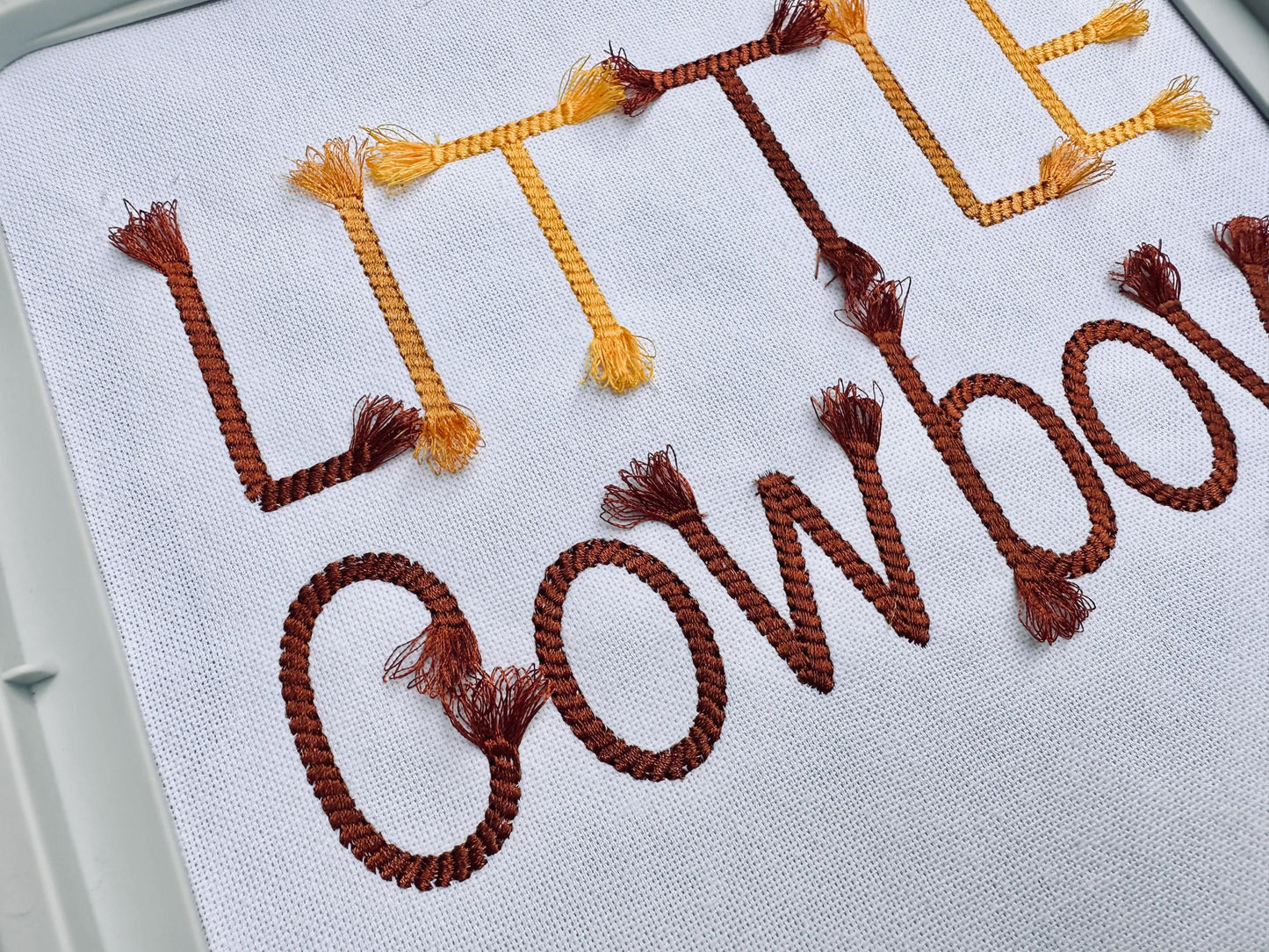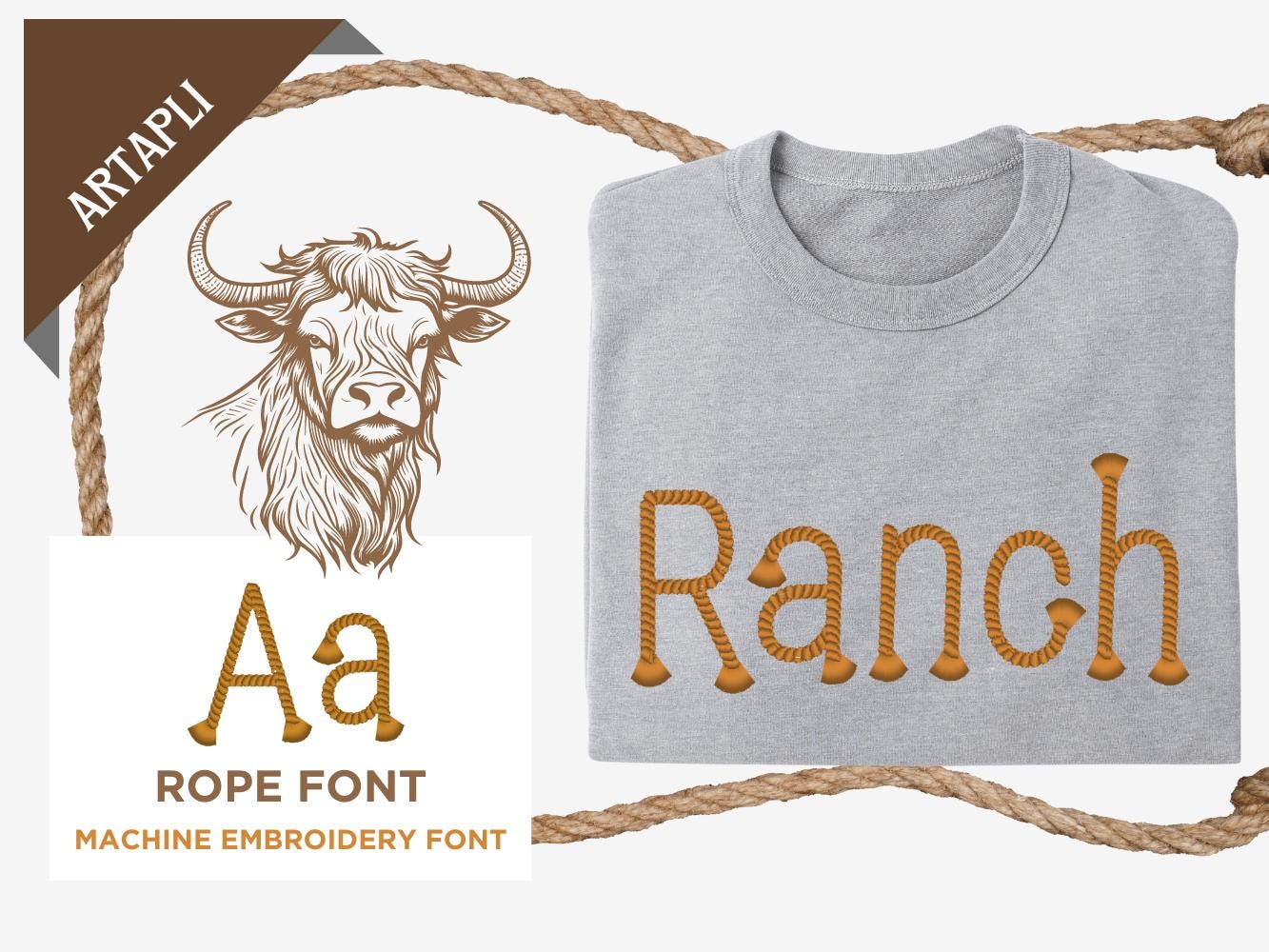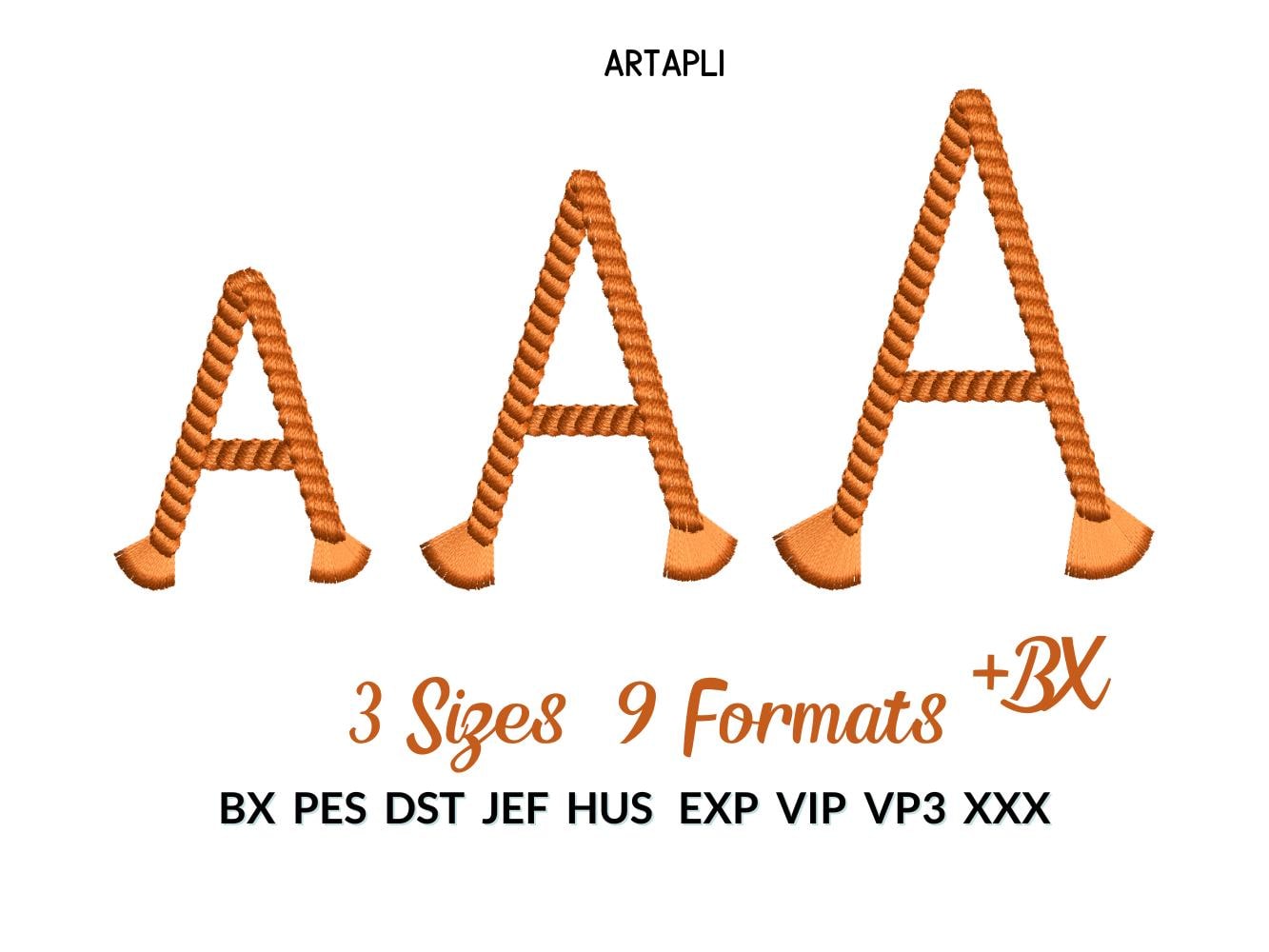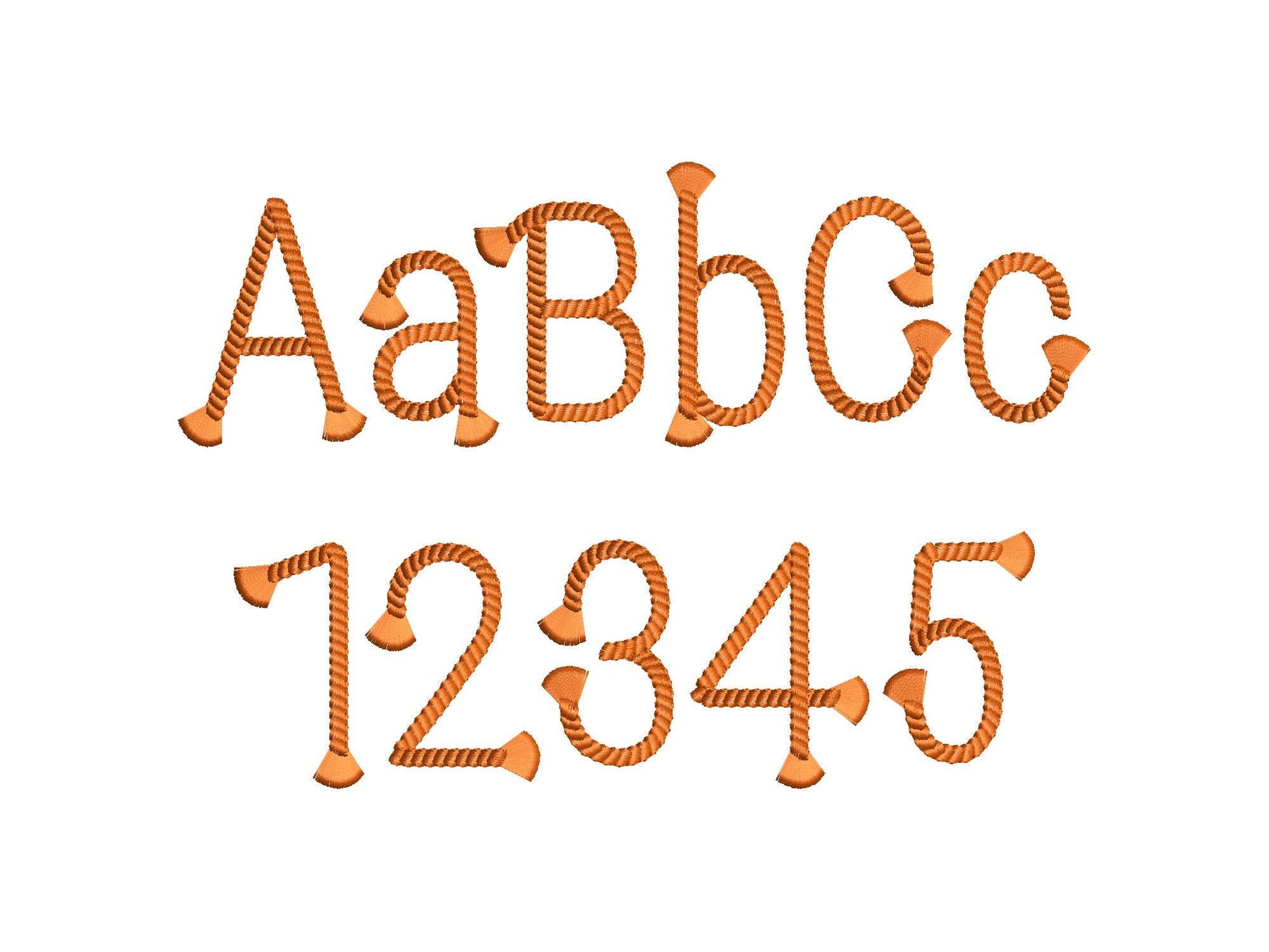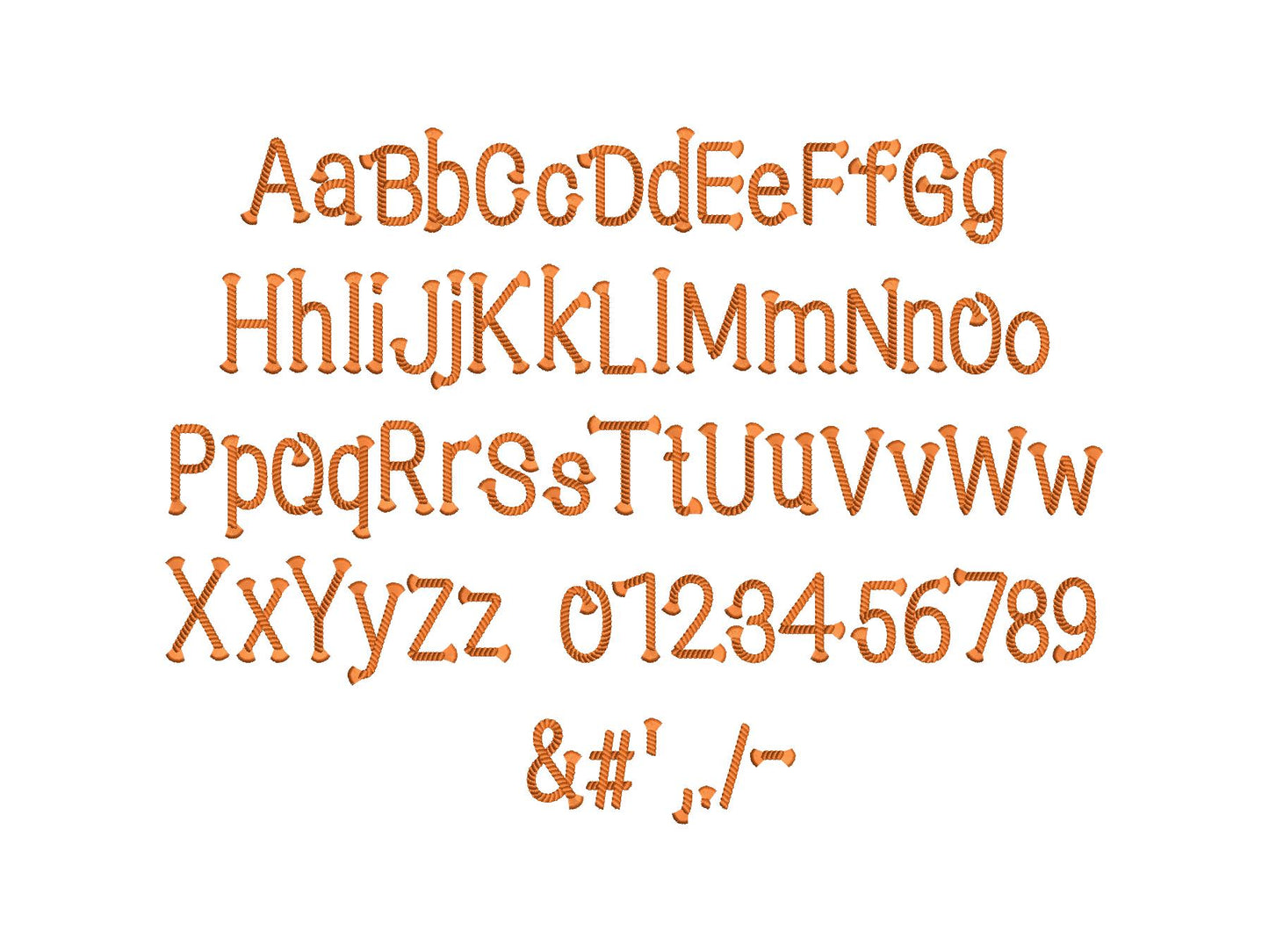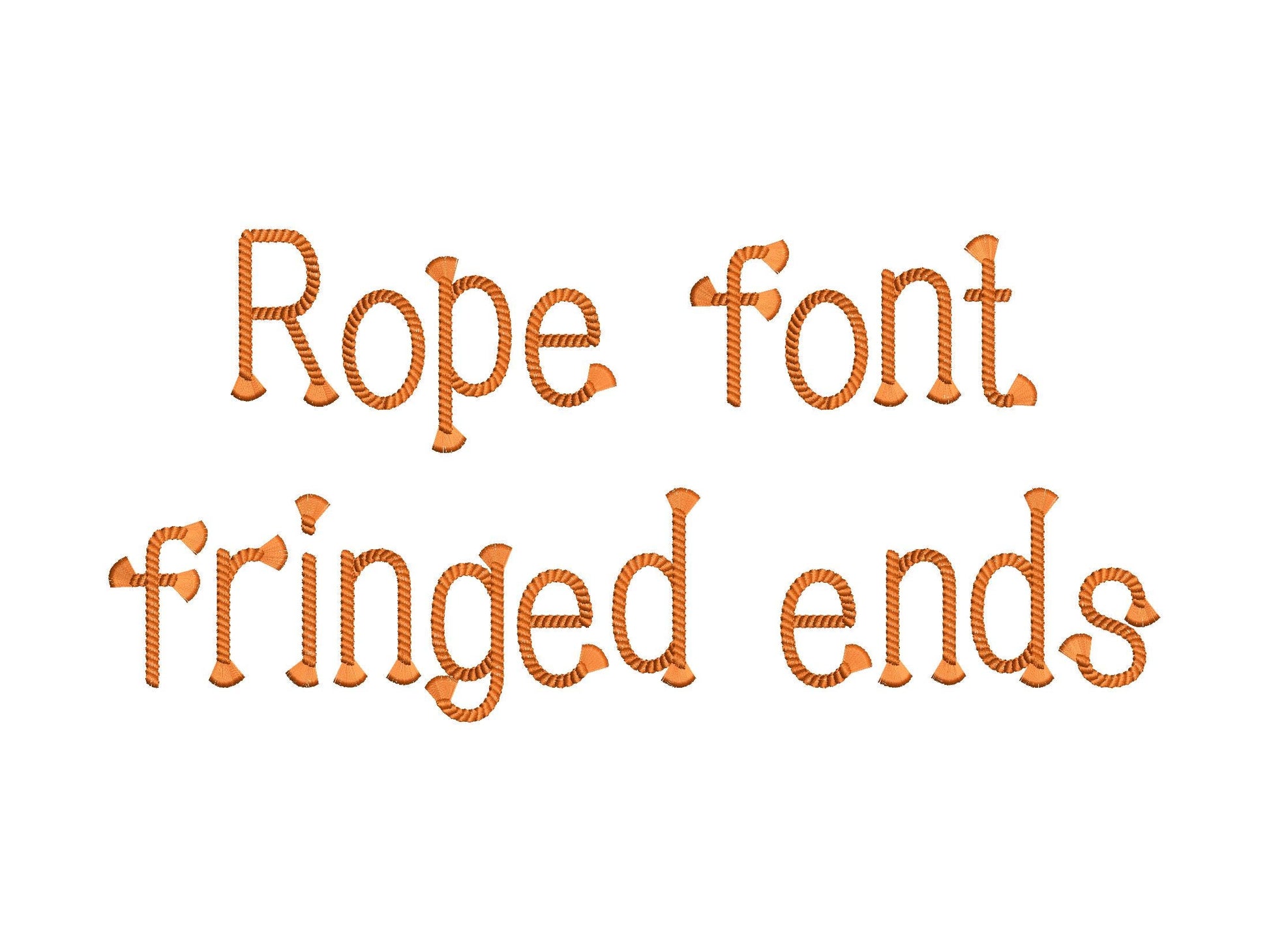
Rope Block Font Fringed Tassel End
Or click to open the linkA lasso rope font with fringed tassel ends. Western fun for cowboy and cowgirl names, rodeo gear and kids' shirts.
Uppercase and lowercase letters, numbers 0 to 9 and punctuation, in three sizes: 1.7, 2.2 and 2.6 inches. The fringed ends are held by a hidden seam, so they are safe to wash.
- Rope letters with fringed ends, uppercase and lowercase
- Numbers 0 to 9 and punctuation